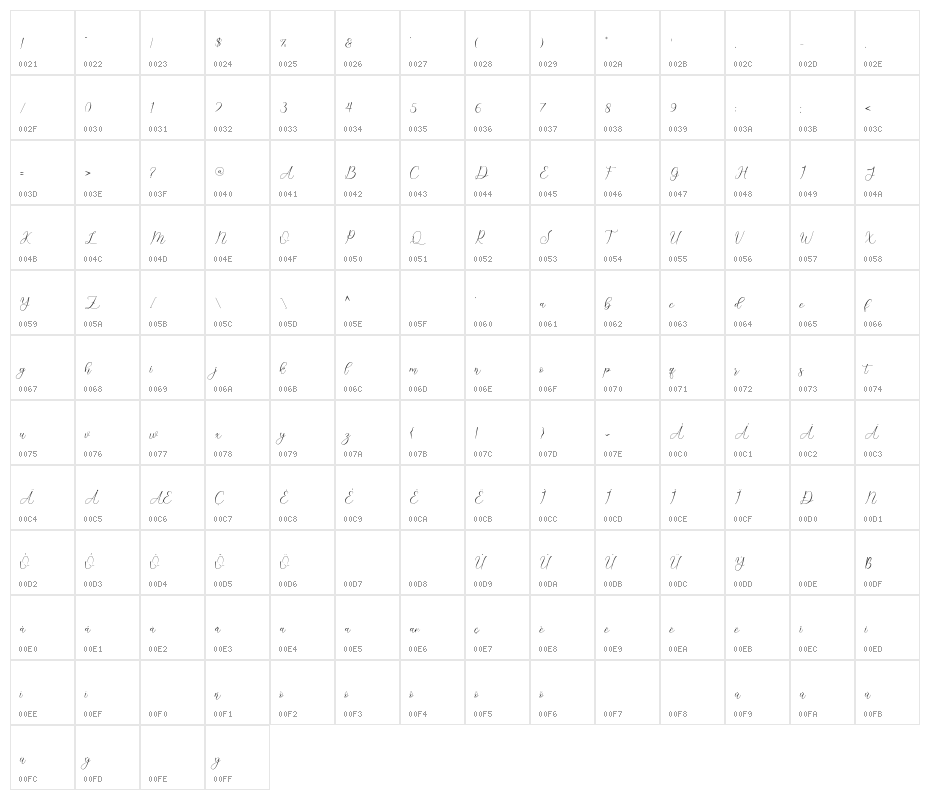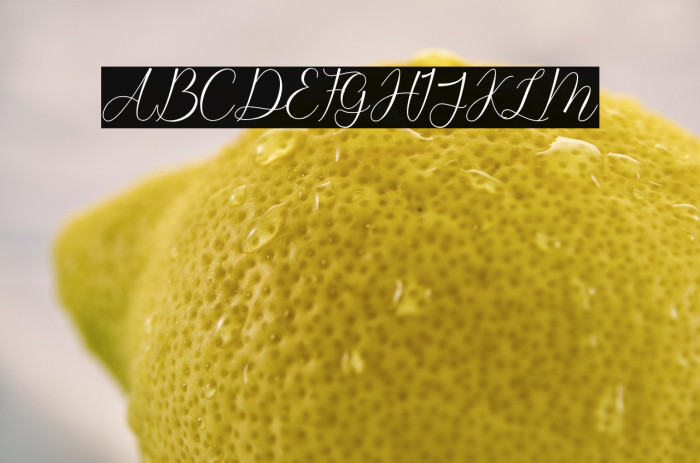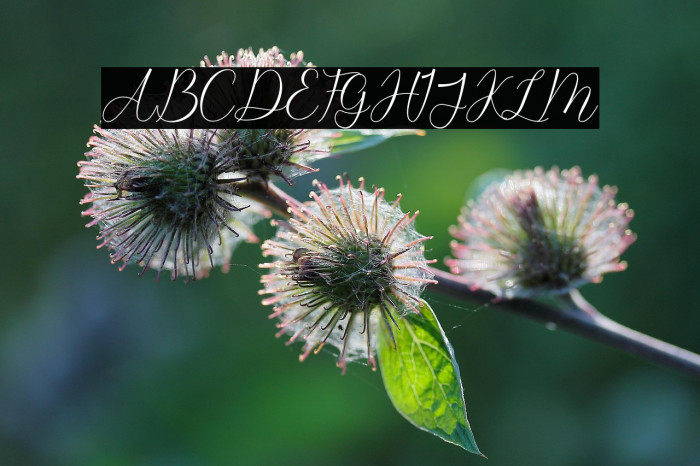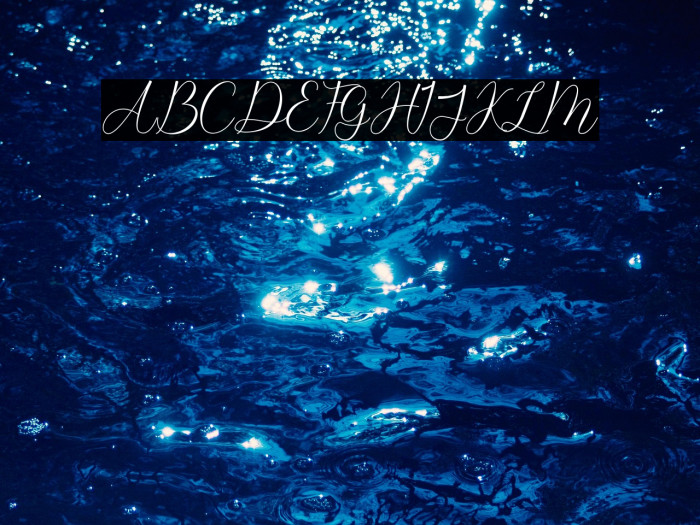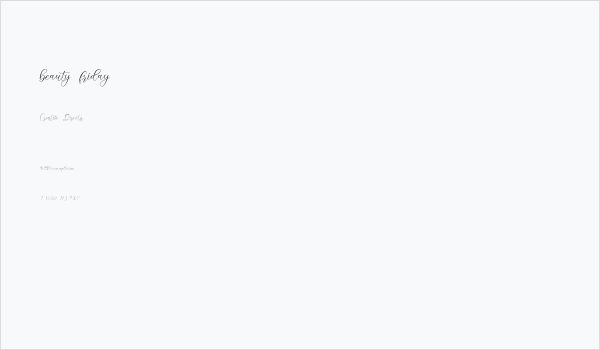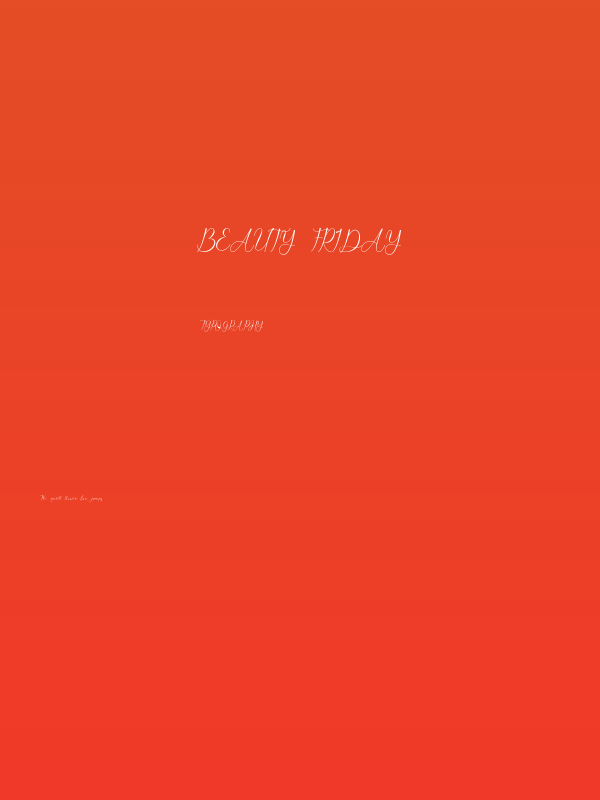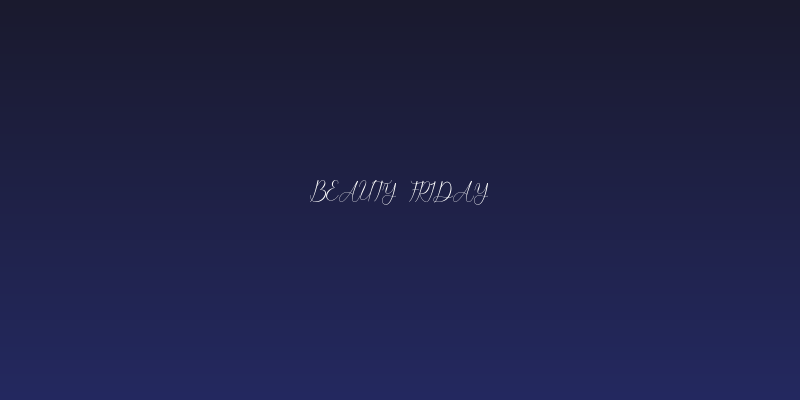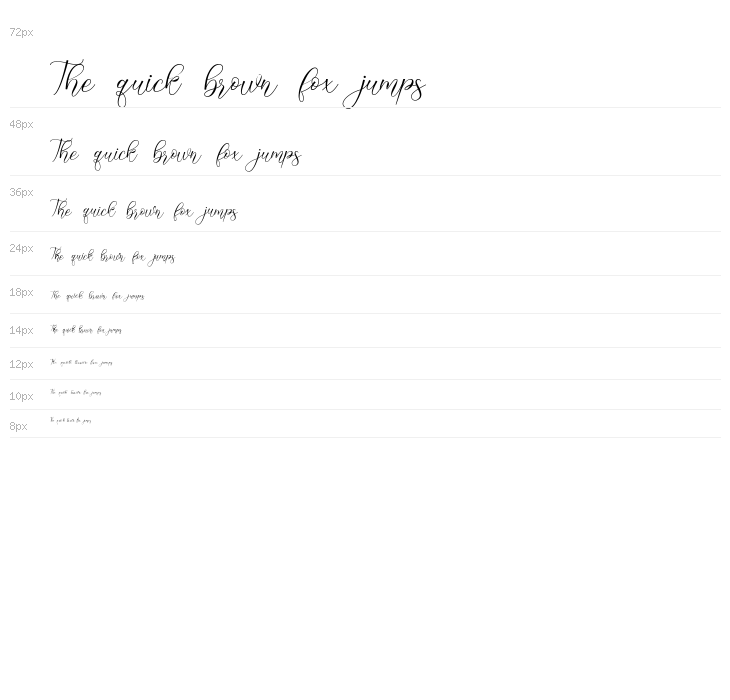
beauty friday Font
beauty friday Description
This elegant script font features a flowing, cursive style with delicate, sweeping strokes that convey a sense of sophistication and grace. The uppercase letters are characterized by their tall, slender forms and intricate loops, while the lowercase letters maintain a consistent fluidity with subtle variations in stroke width. The numerals and special characters complement the overall aesthetic, offering a cohesive and harmonious look. This font is ideal for projects that require a touch of elegance and refinement, such as wedding invitations, upscale branding, or artistic designs.
| Overall Style | Elegant, Sophisticated |
| Use Case | Headlines, Invitations, Logos |
| Proposed Projects | Wedding invitations, upscale branding, artistic designs, elegant stationery. |